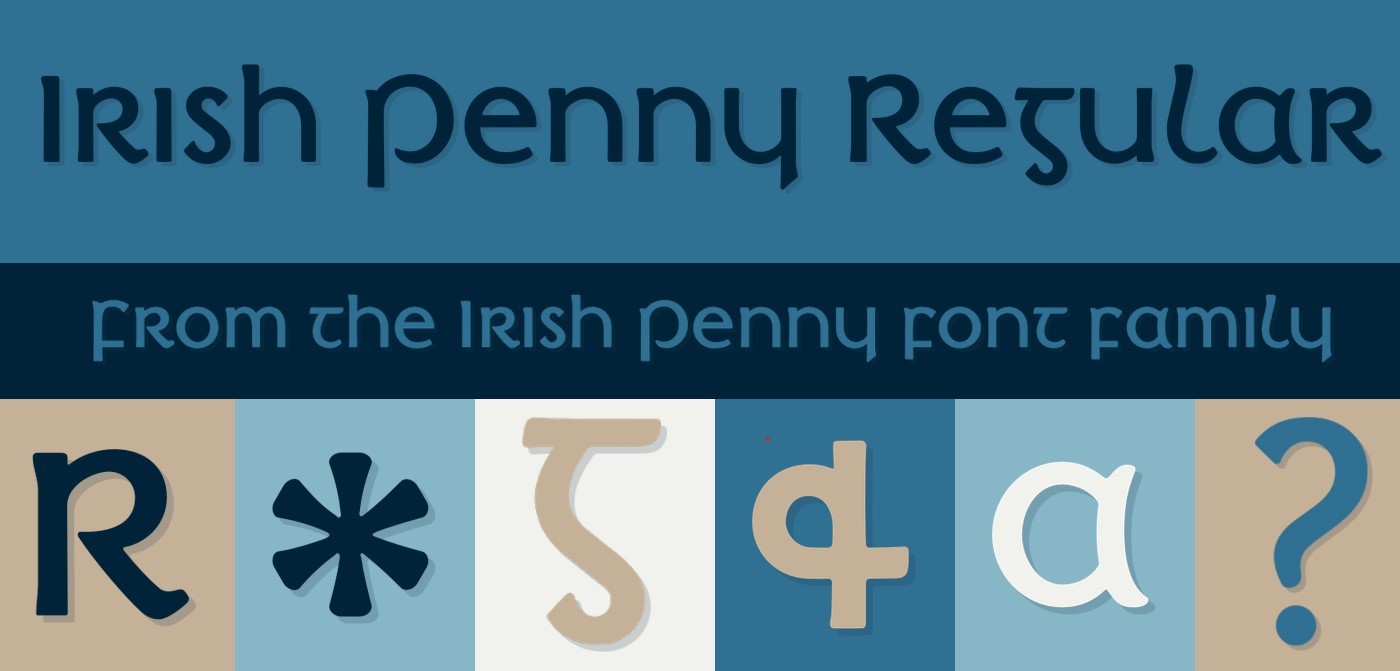
Irish Penny Font
The Irish Penny Font is a highly accurate text generator commonly used in designs to enhance the visual appeal of the content. It is also referred to as the Gaelic font.
Style Of Irish Penny Font Free